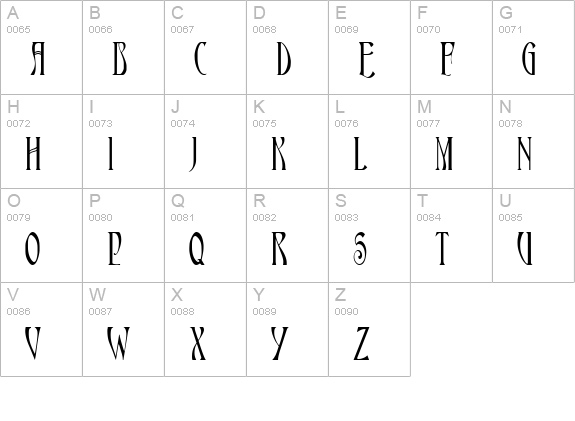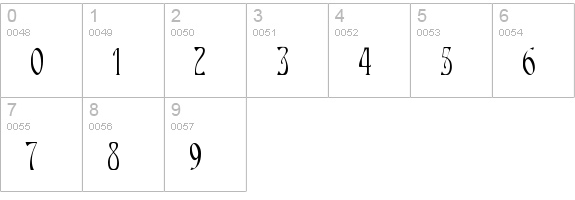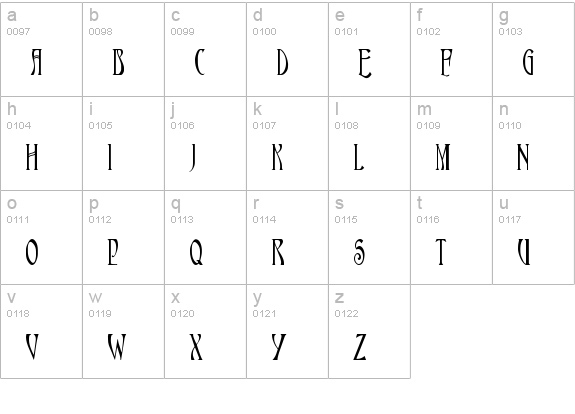
NouveauCondensed Normal Font Details
NouveauCondensed Normal is the standard, neutral variant in the NouveauCondensed typeface family \xE2\x80\x94 well suited to general body text, paragraphs, and standard typographic work.
NouveauCondensed Normal font is a stylish and elegant typeface that exudes sophistication and modernity. Its condensed form allows for a sleek and polished look, making it perfect for a wide range of design projects. With its clean lines and timeless appeal, NouveauCondensed Normal font is sure to make a statement in any design. The best part? This versatile font is available for free download at FontsMarket.com, making it accessible to anyone looking to elevate their designs with a touch of class and elegance. Whether you're working on a branding project, website design, or any other creative endeavor, NouveauCondensed Normal font is a must-have addition to your font collection. Download it today and start creating stunning designs that stand out from the rest.